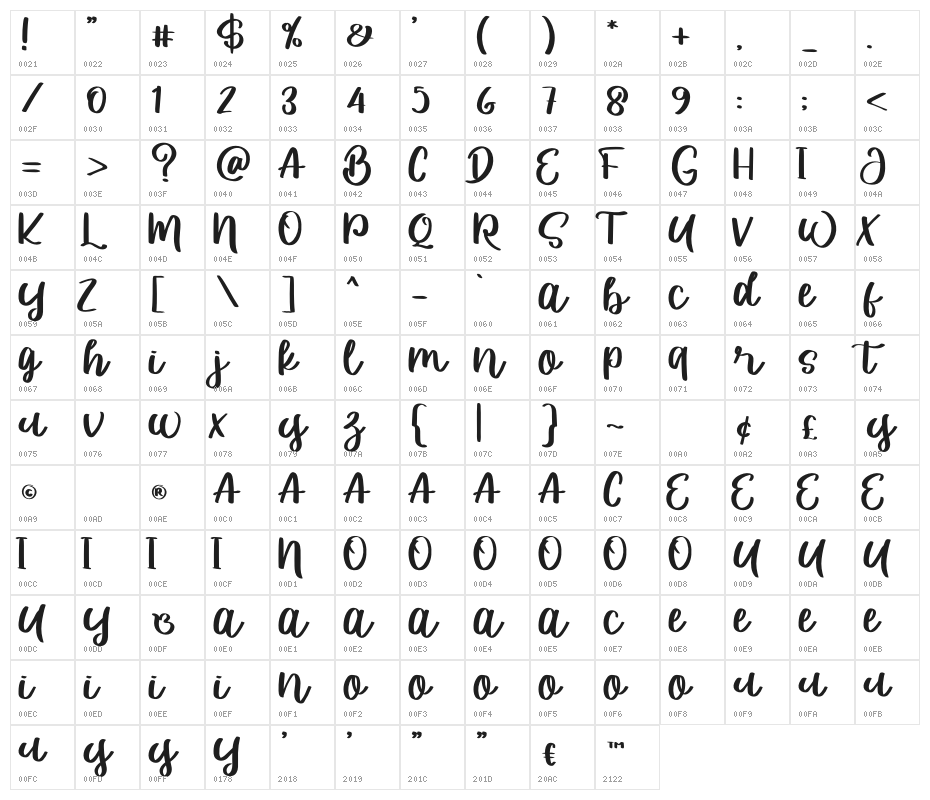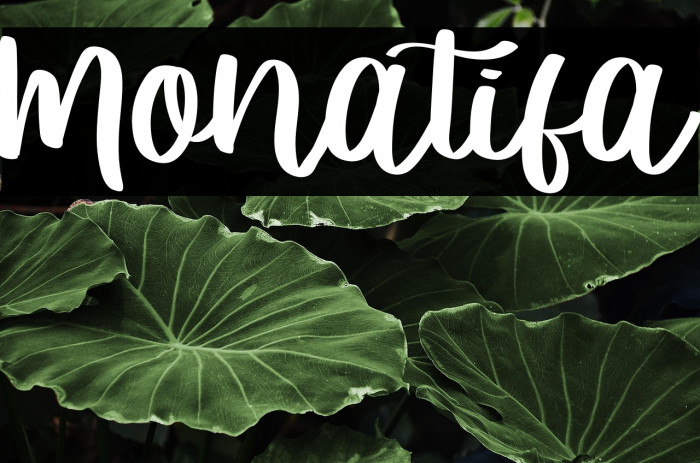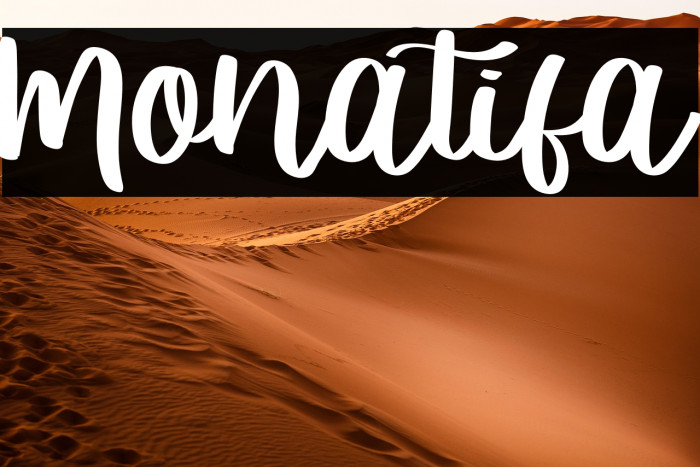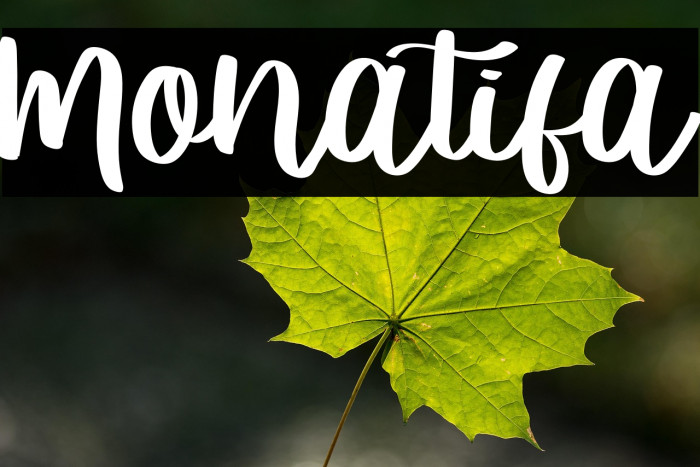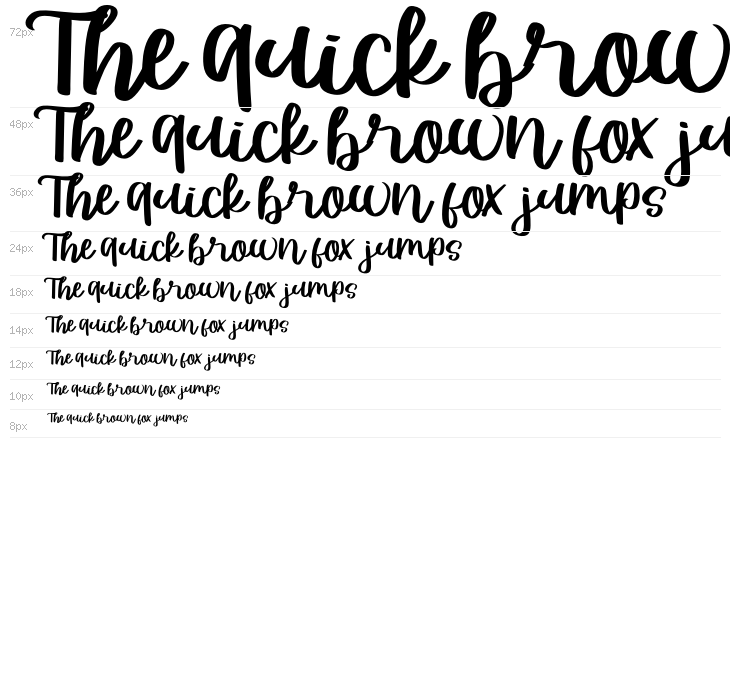
Monatifa Font
Monatifa Description
This font features a lively and flowing script style, characterized by its bold and expressive strokes. The letters are interconnected, creating a sense of movement and fluidity. The uppercase letters are distinct and prominent, while the lowercase letters maintain a consistent rhythm. The numbers and special characters are crafted with the same attention to detail, ensuring a cohesive look across all elements. The overall design is playful yet elegant, making it suitable for a variety of creative applications.
| Proposed Projects | Ideal for wedding invitations, greeting cards, branding projects, and social media graphics. |